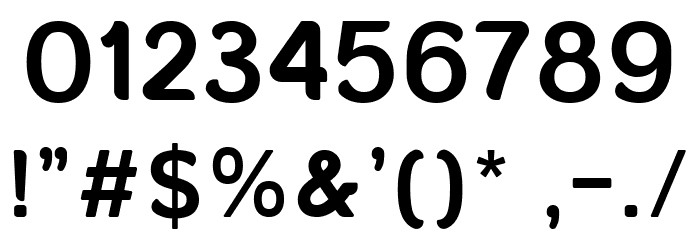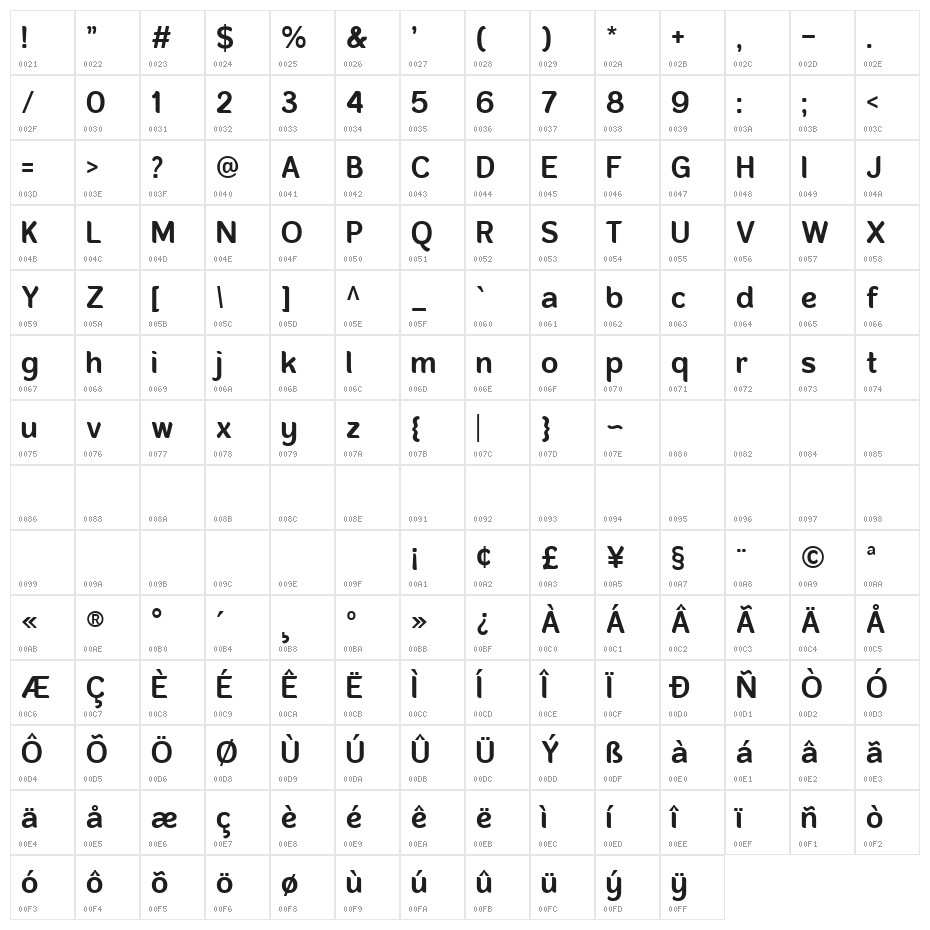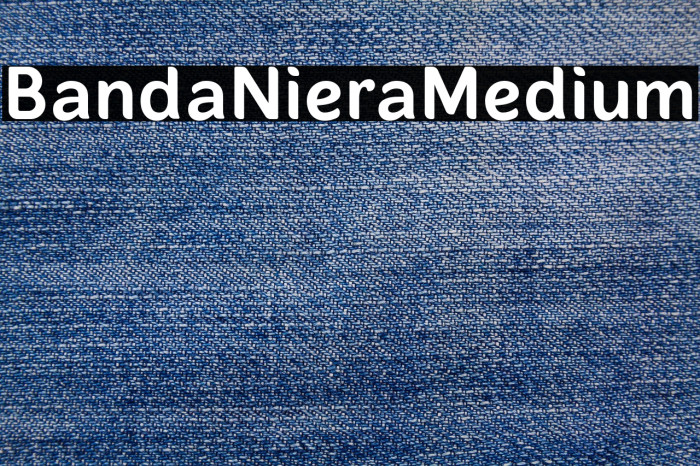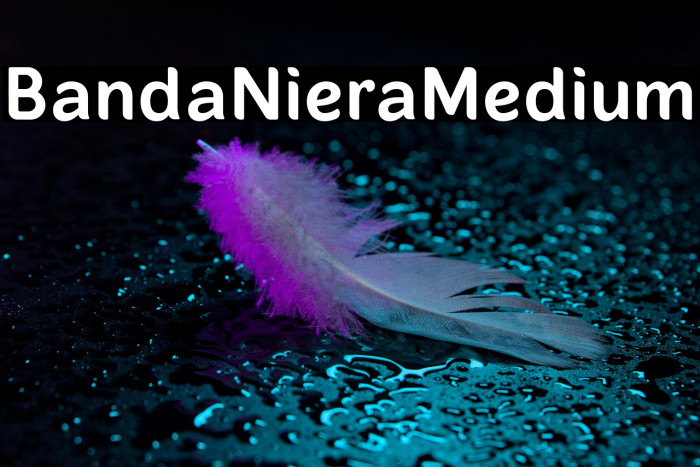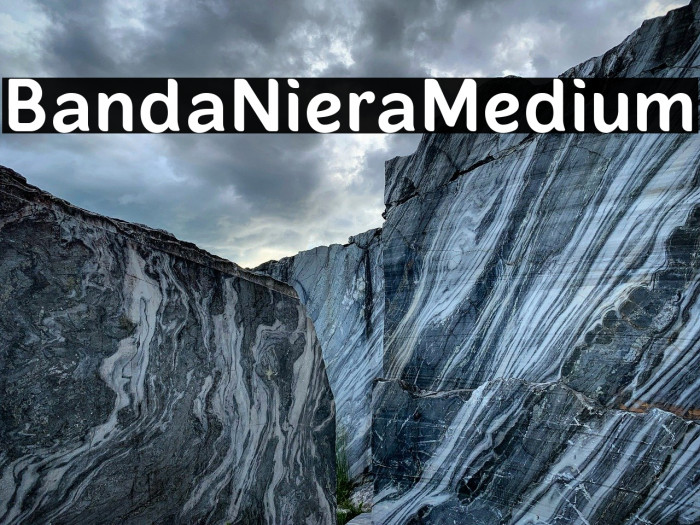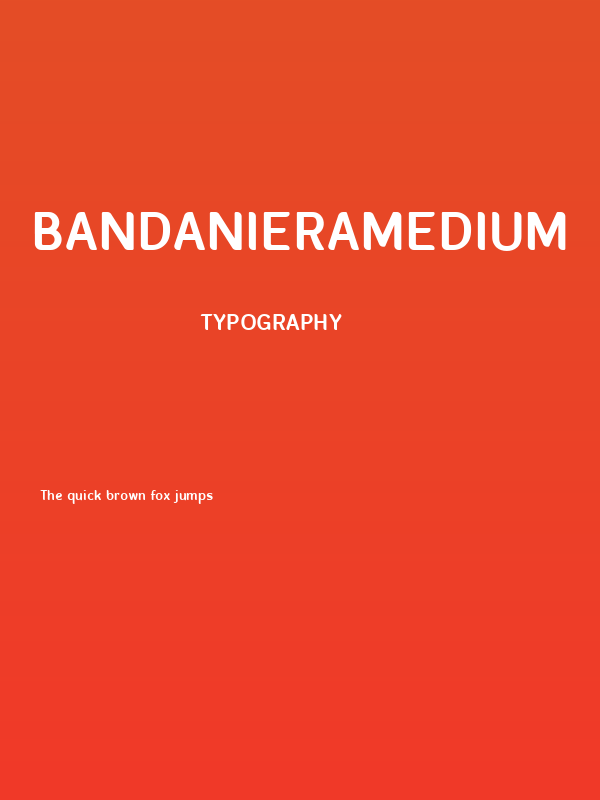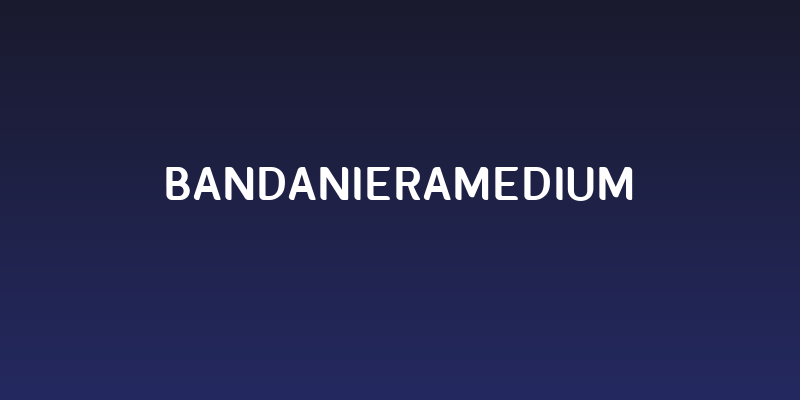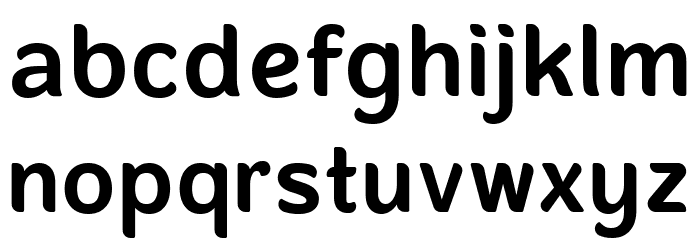
BandaNieraMedium Font
BandaNieraMedium Description
This font features a clean and modern sans-serif design with rounded edges, providing a friendly and approachable appearance. The characters are uniformly structured, offering a balanced and harmonious look. The uppercase letters are bold and assertive, while the lowercase letters maintain a consistent flow with slightly rounded terminals. The numerals are clear and easily distinguishable, making them suitable for various applications. The special characters are well-integrated, ensuring versatility in design projects. Overall, this font exudes a contemporary and professional vibe, making it ideal for digital and print media.
| Proposed Projects | Ideal for branding, web design, advertising, and user interfaces. |